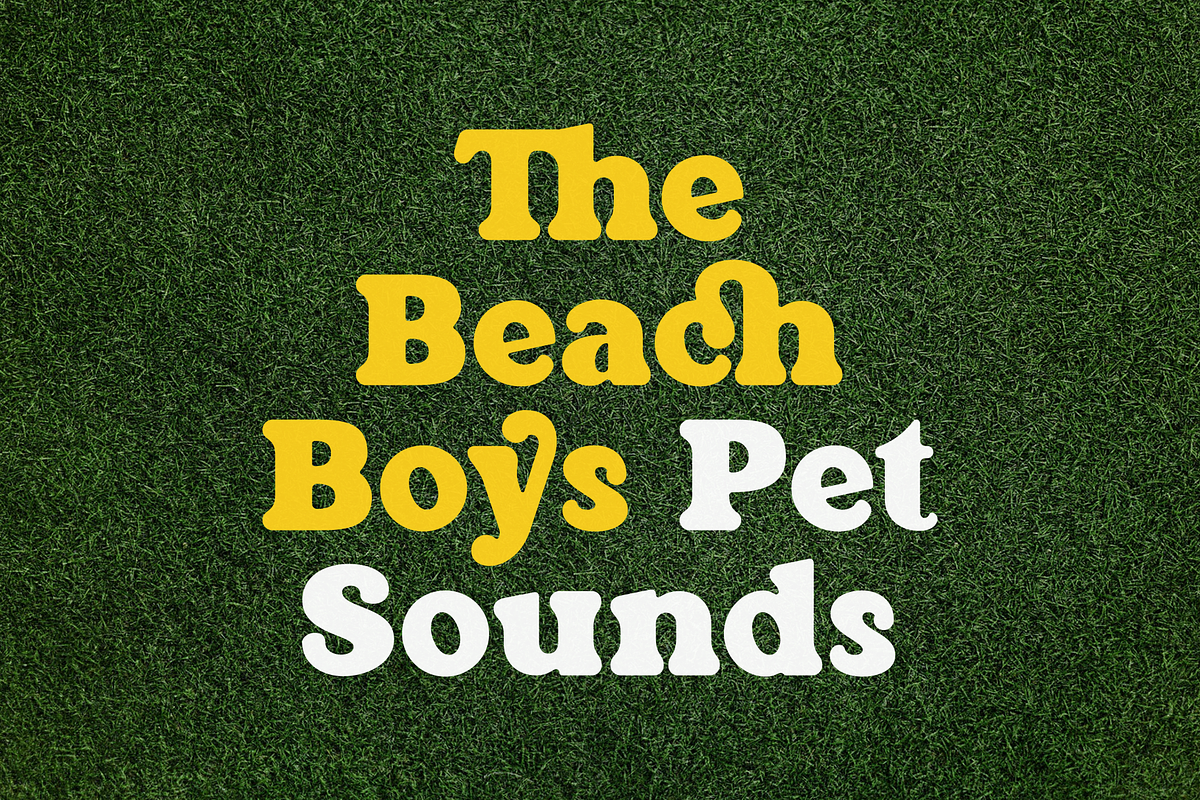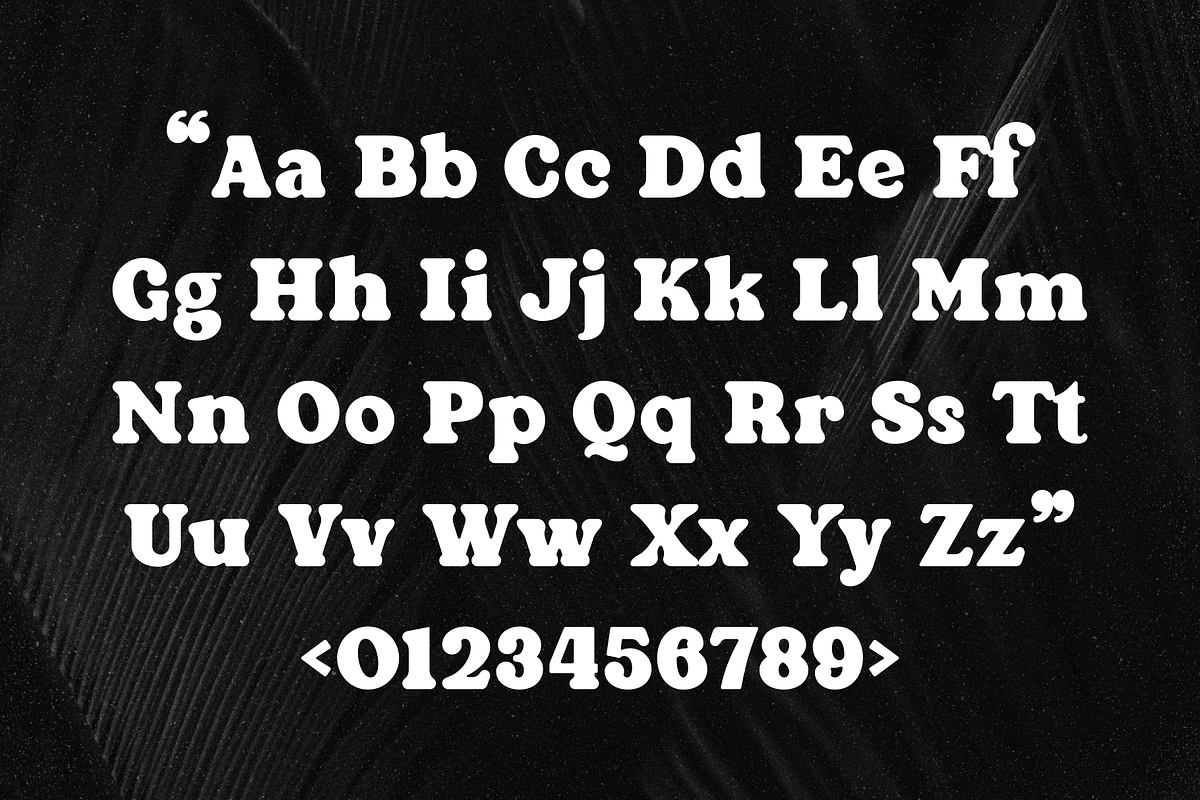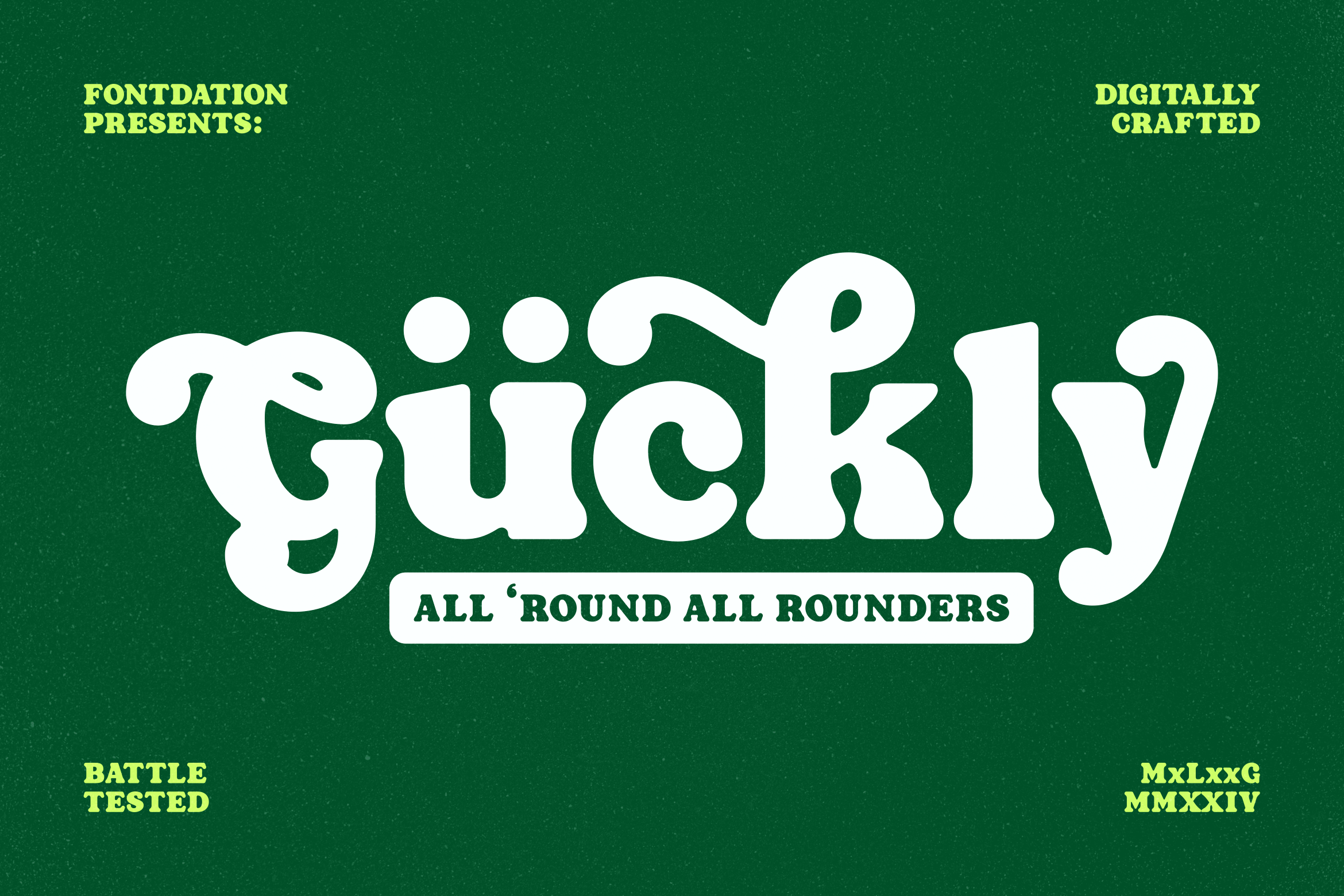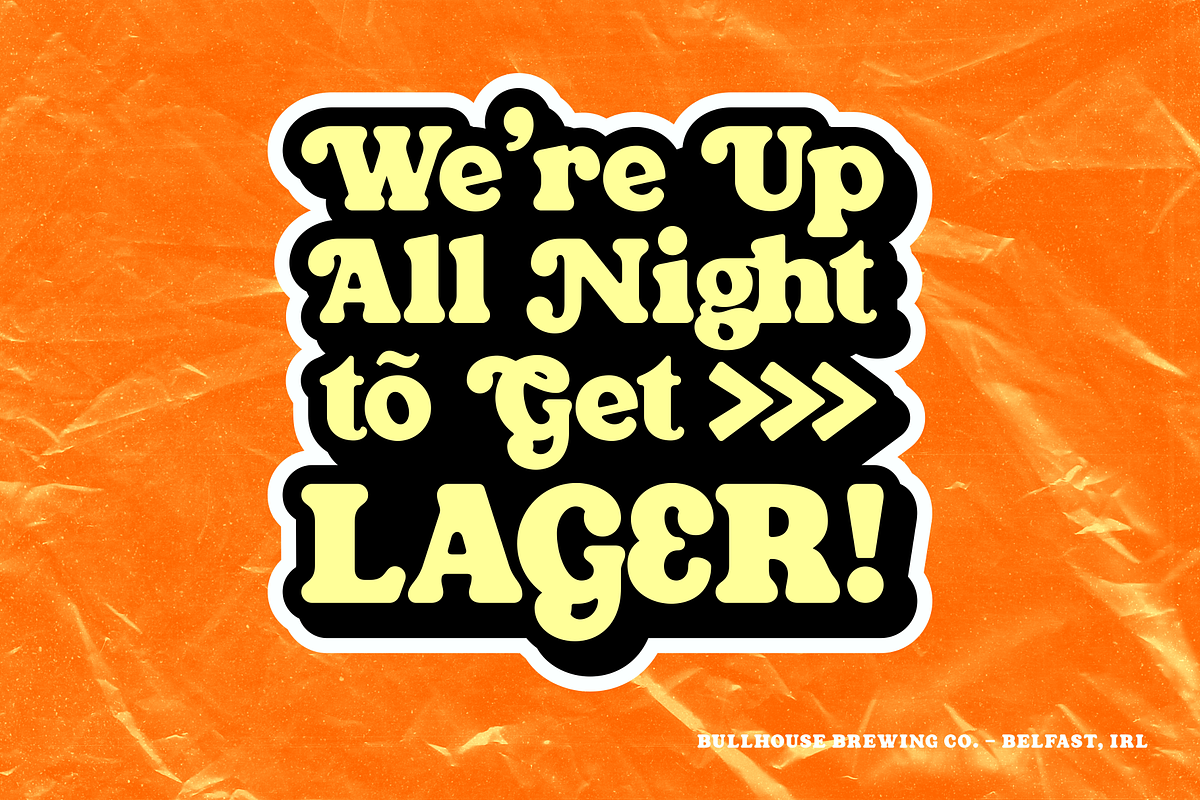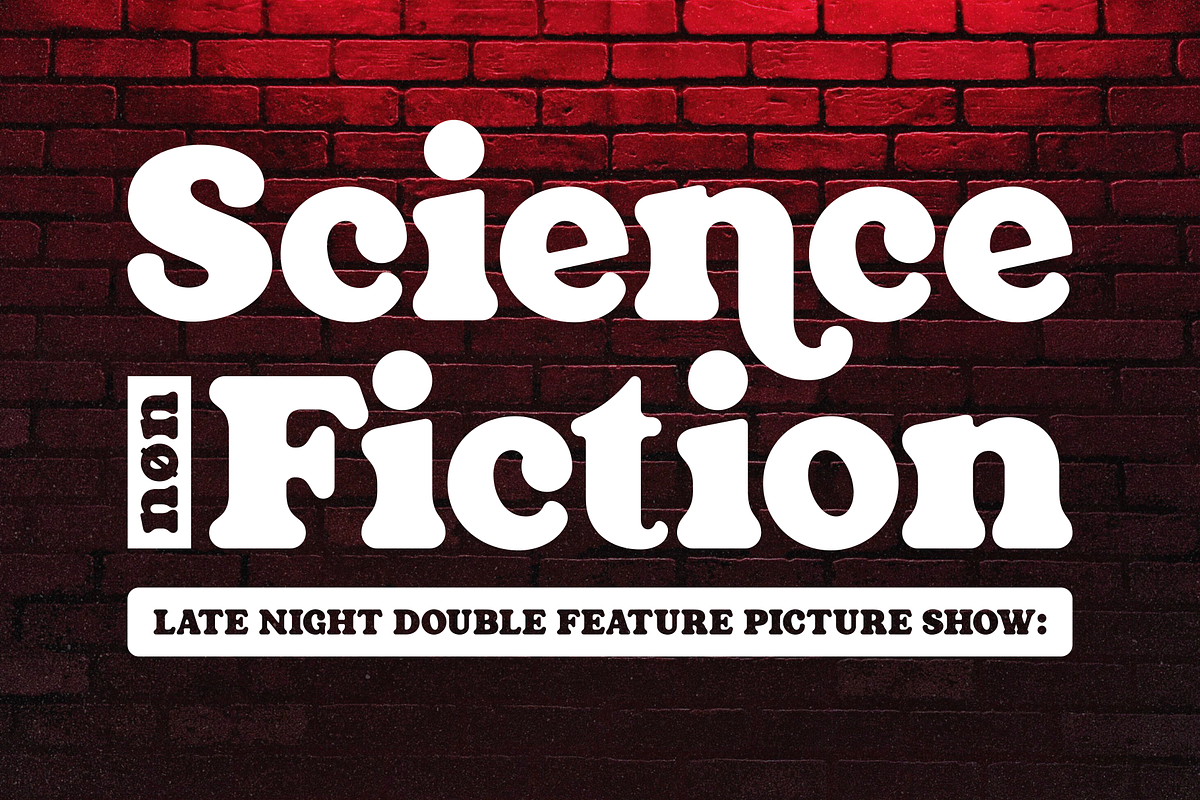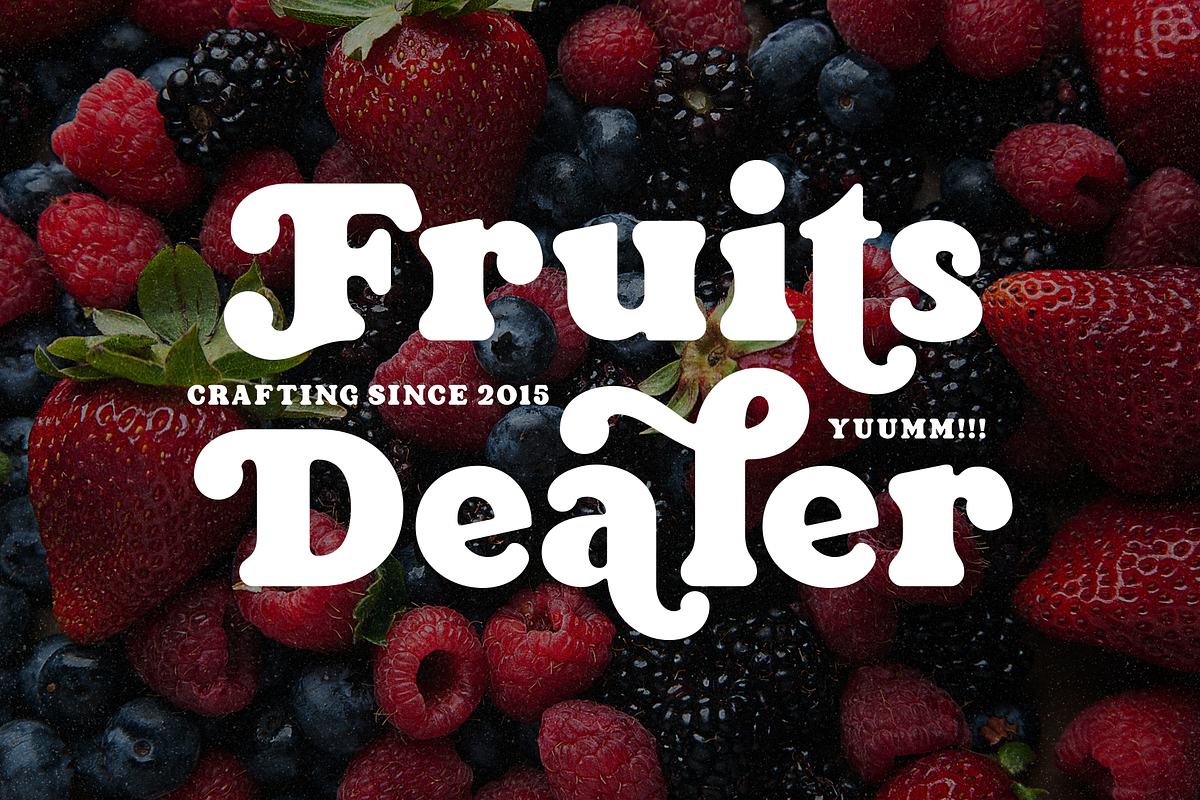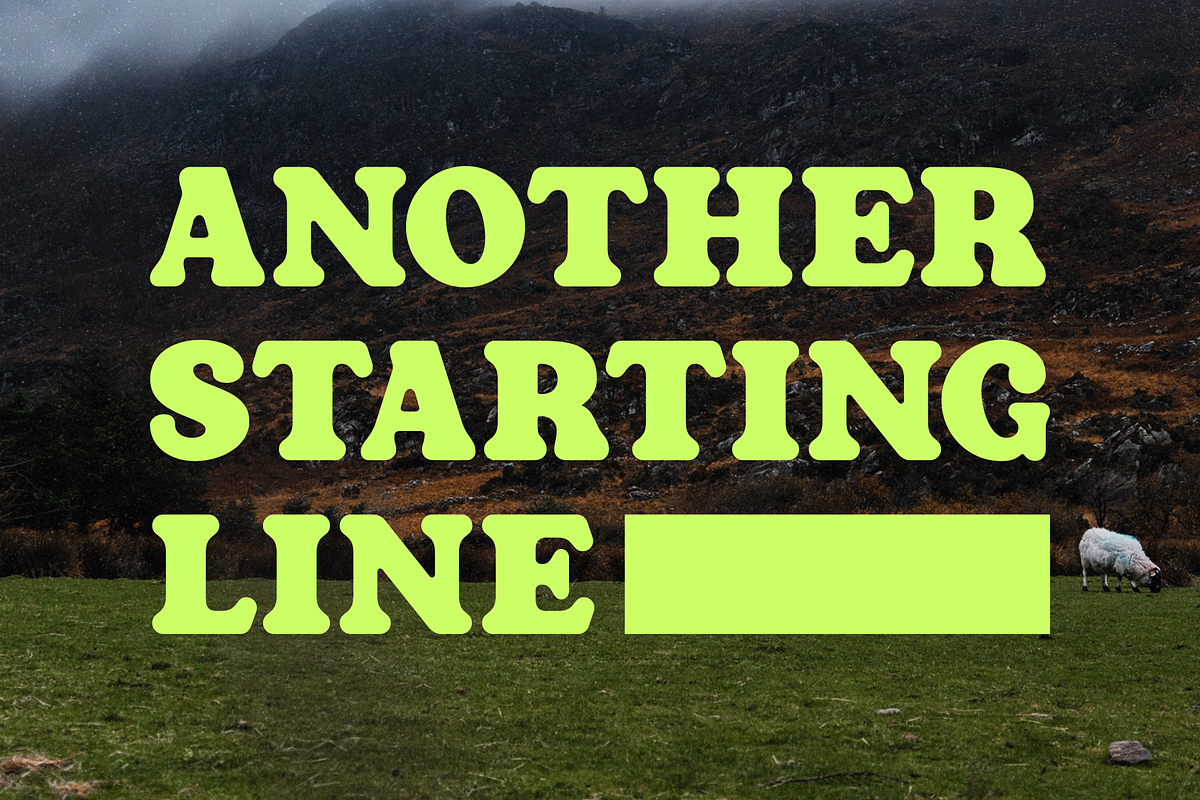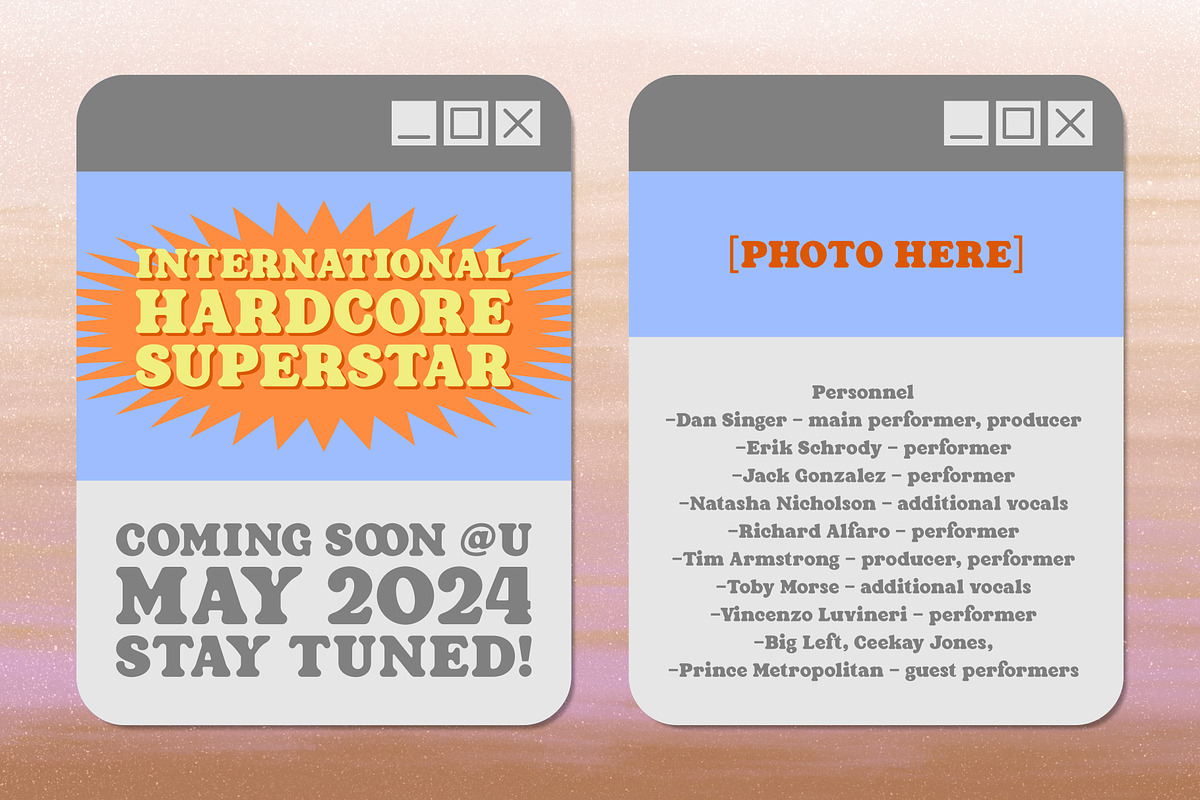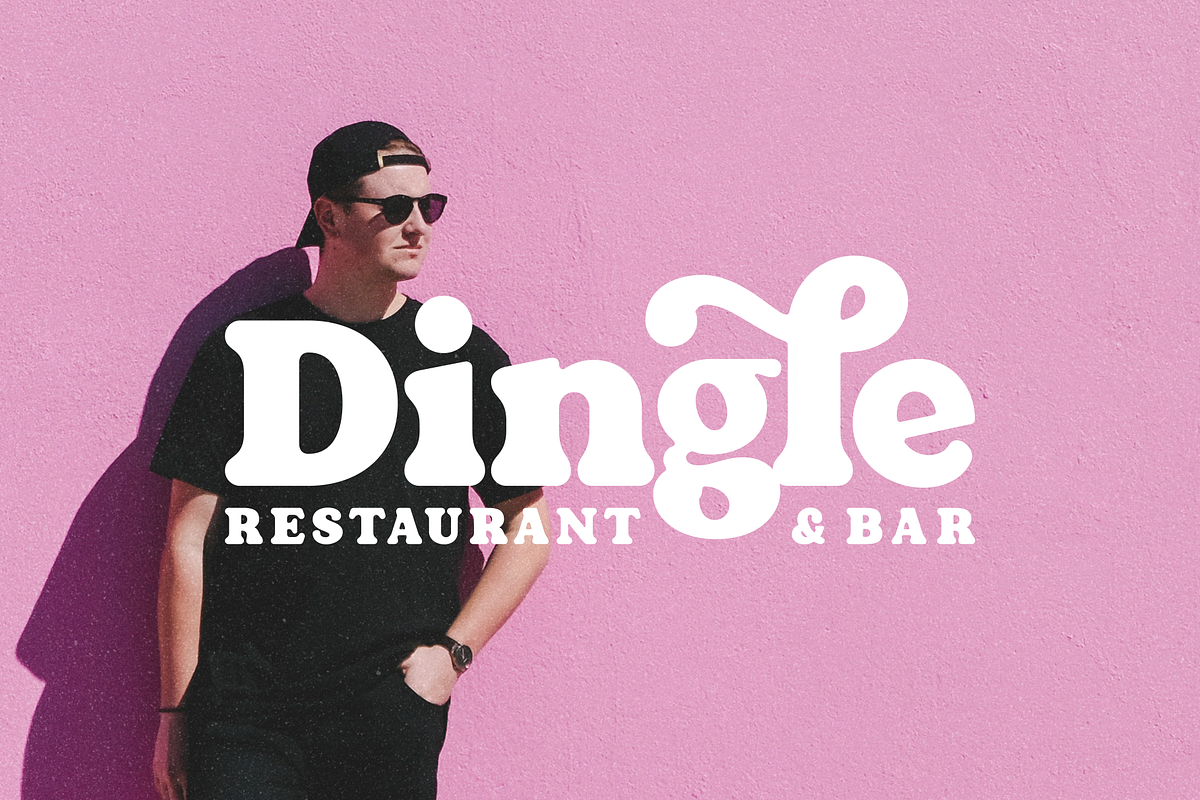
Guckly | Display Font
Introducing Guckly, our latest font release that are inspired by classic typography. Digitally crafted with high attention to the smooth lines to achieve the rounded edges feel. Suits best for you that are working with: poster, headline. logo/branding, packaging, etc.
- Standard characters, numerals, punctuations, alternate & stylistic characters, LOTS of ligatures (OpenType Standard encoding),